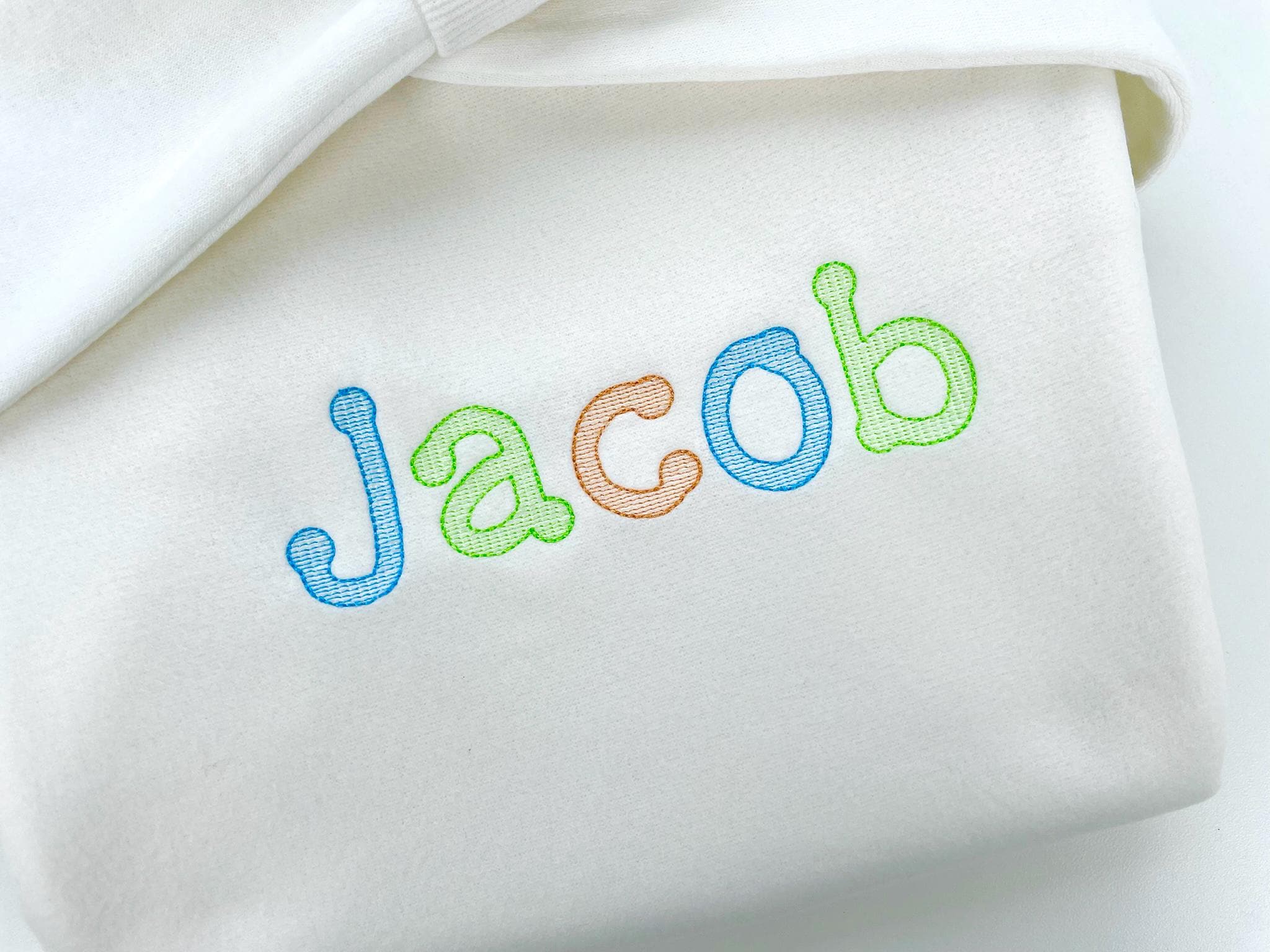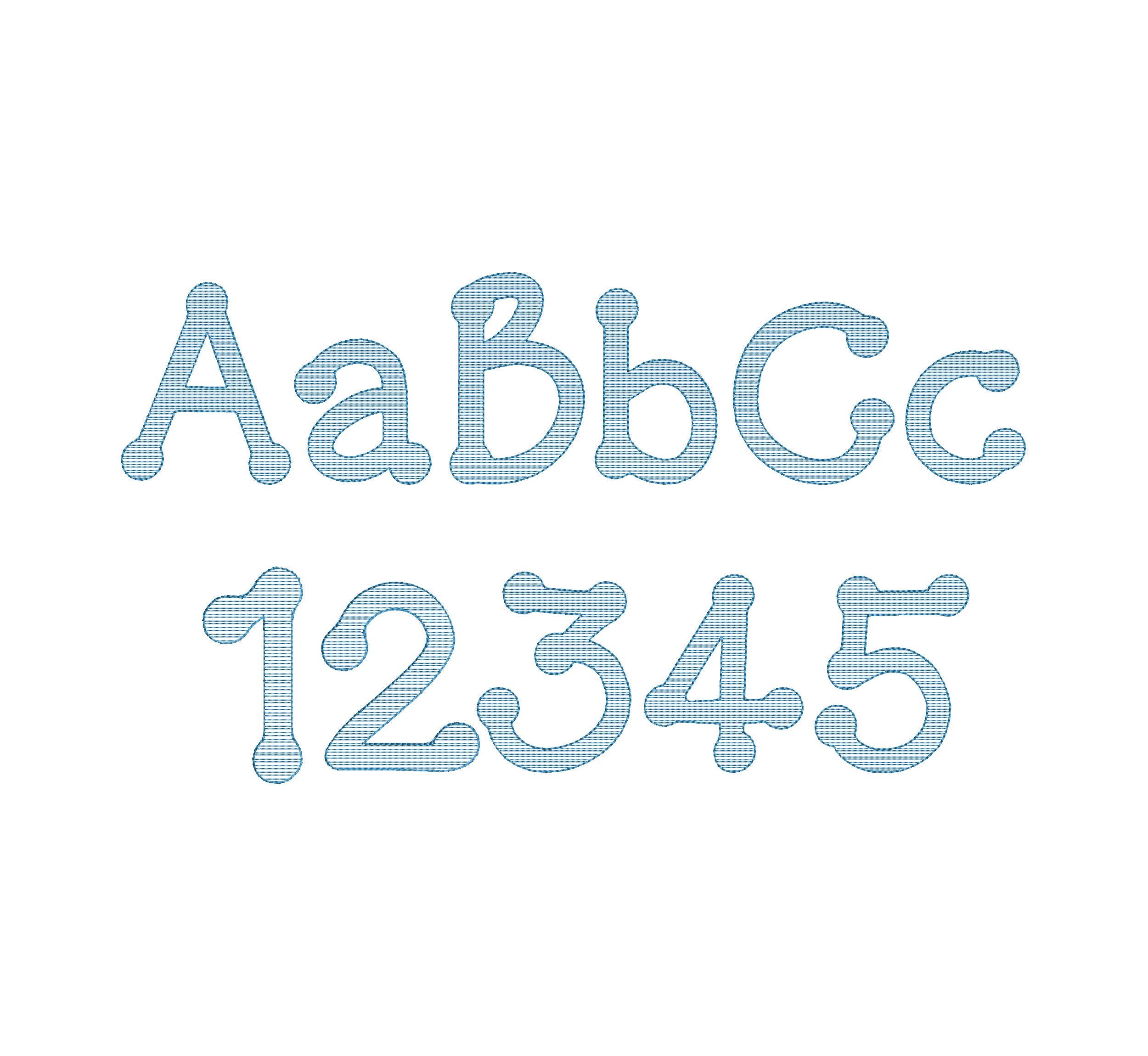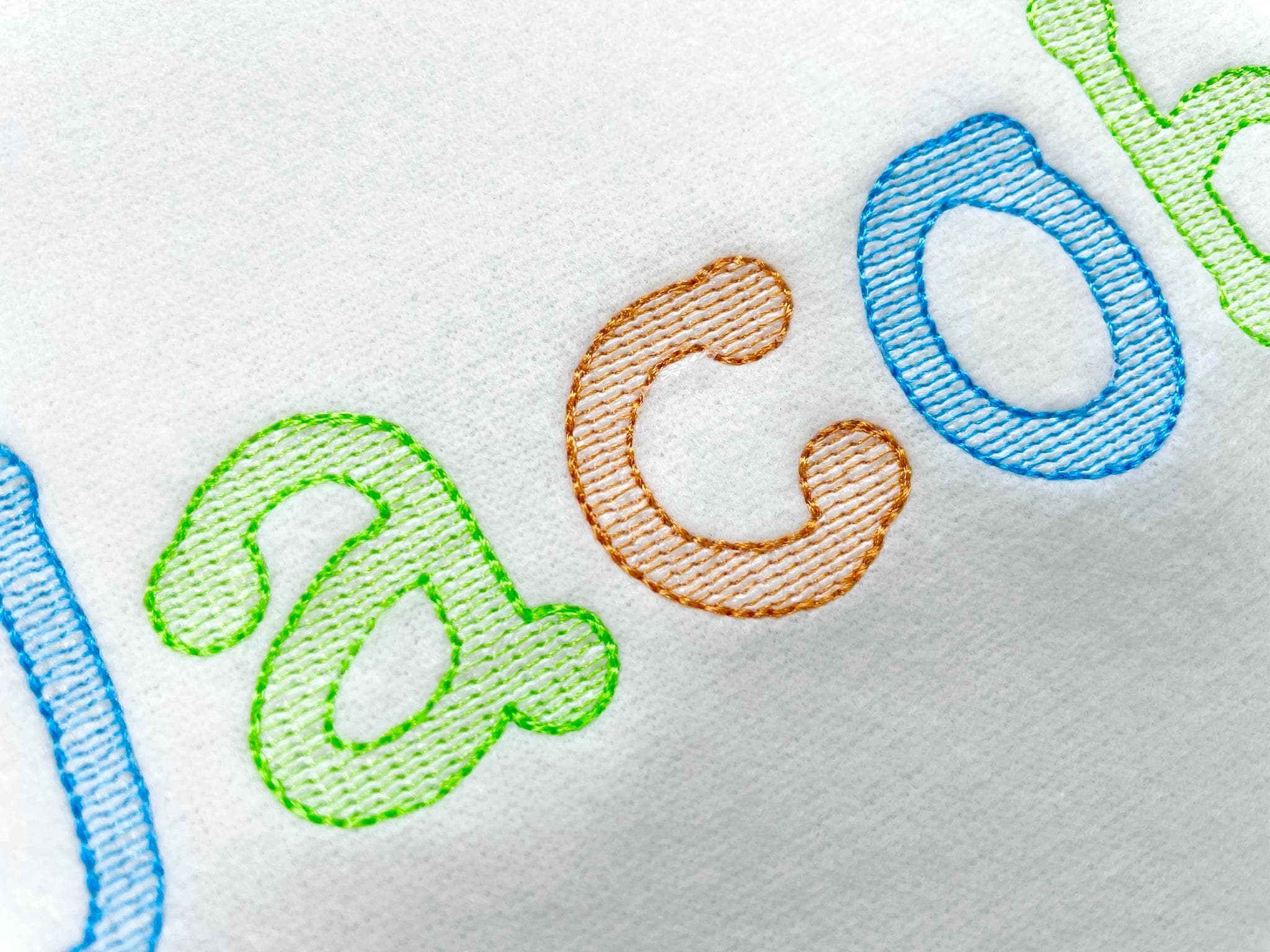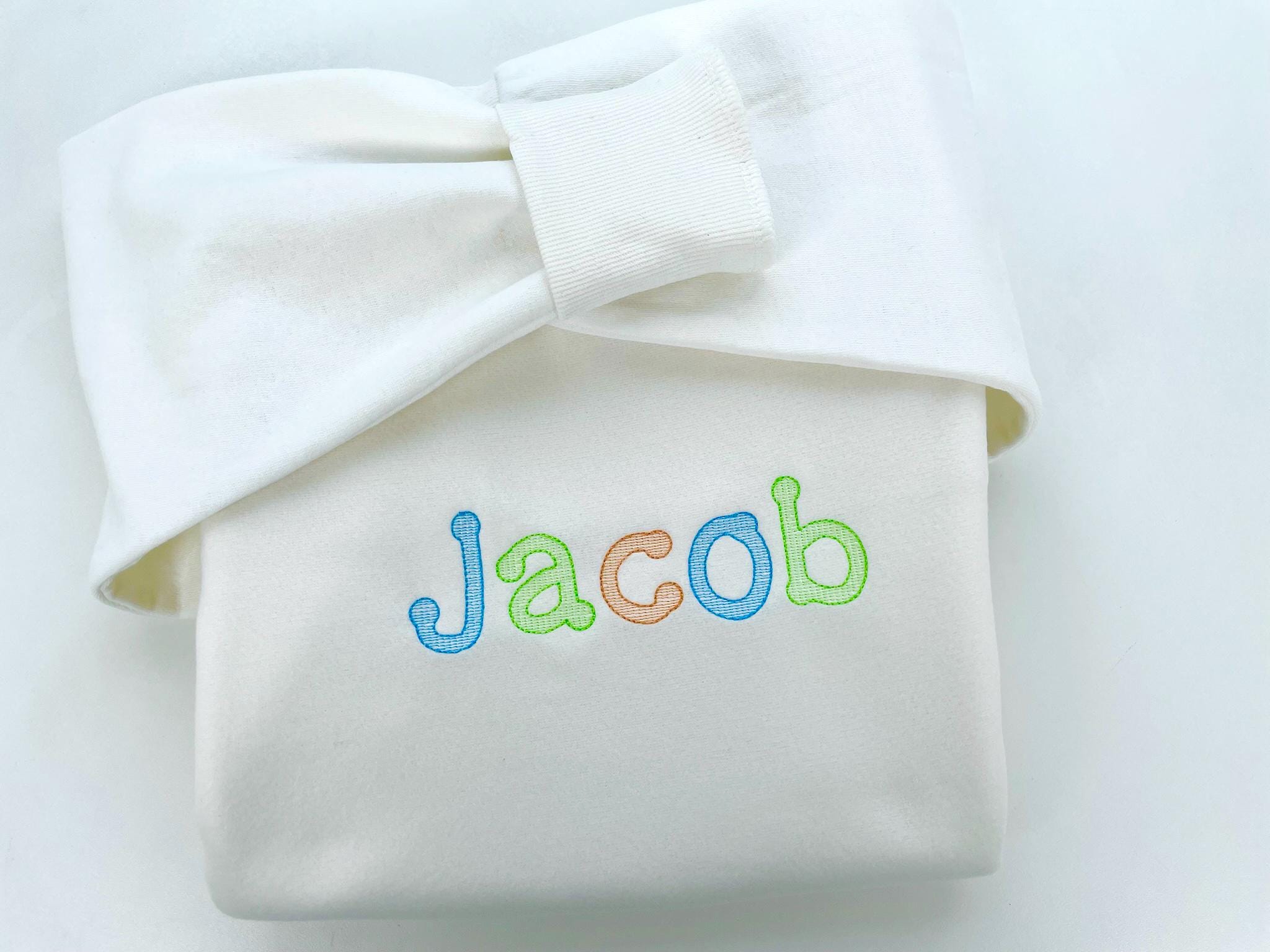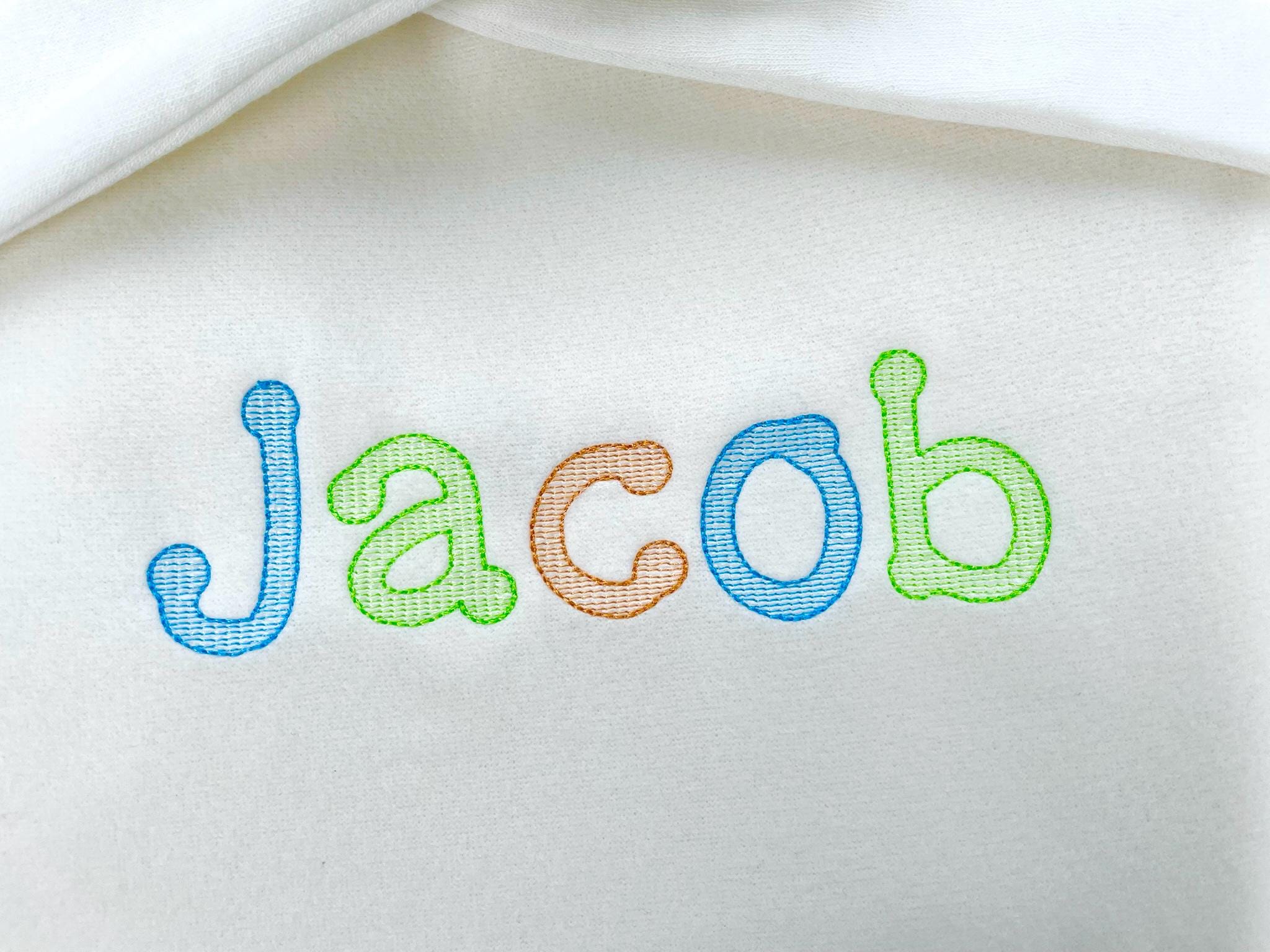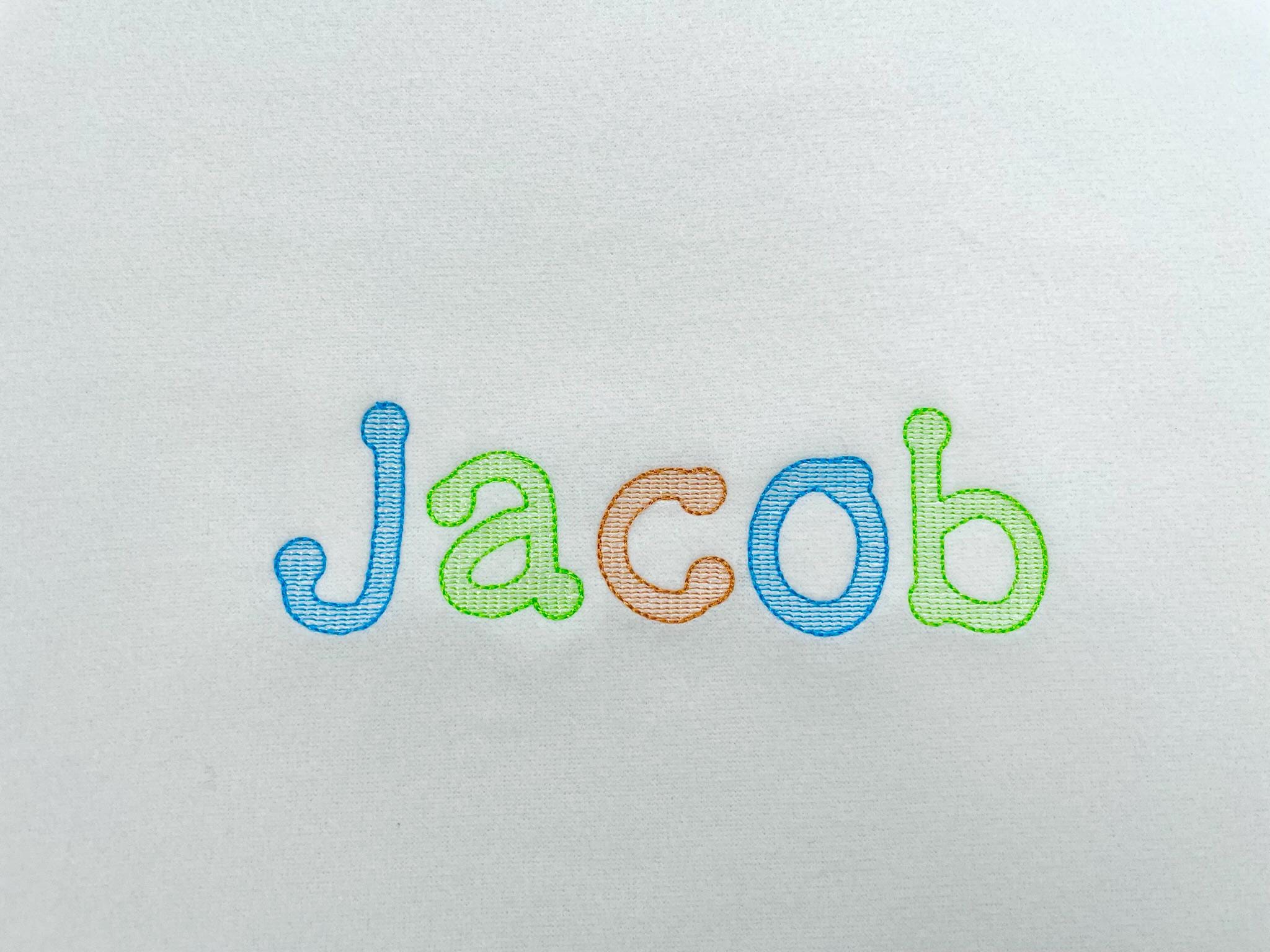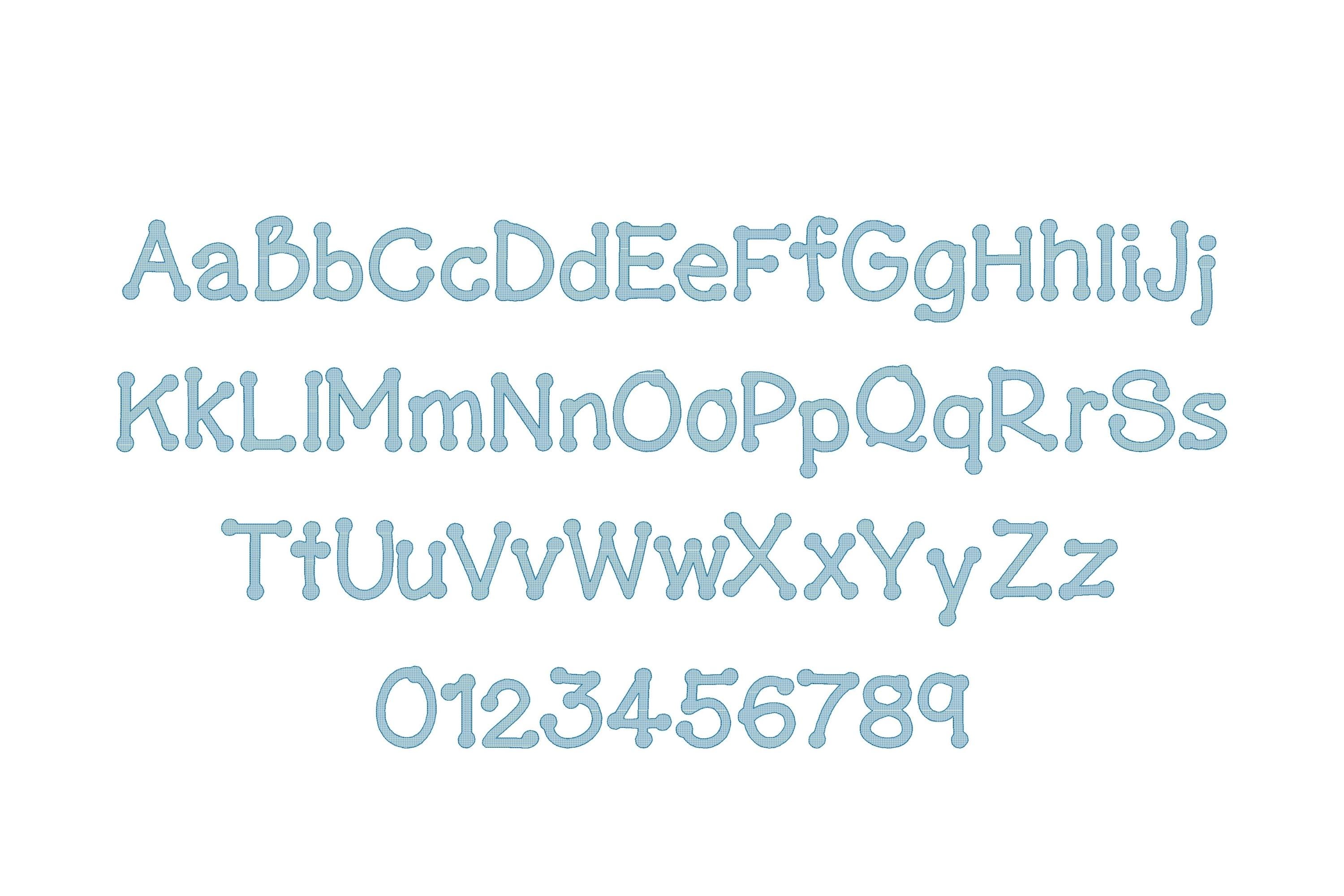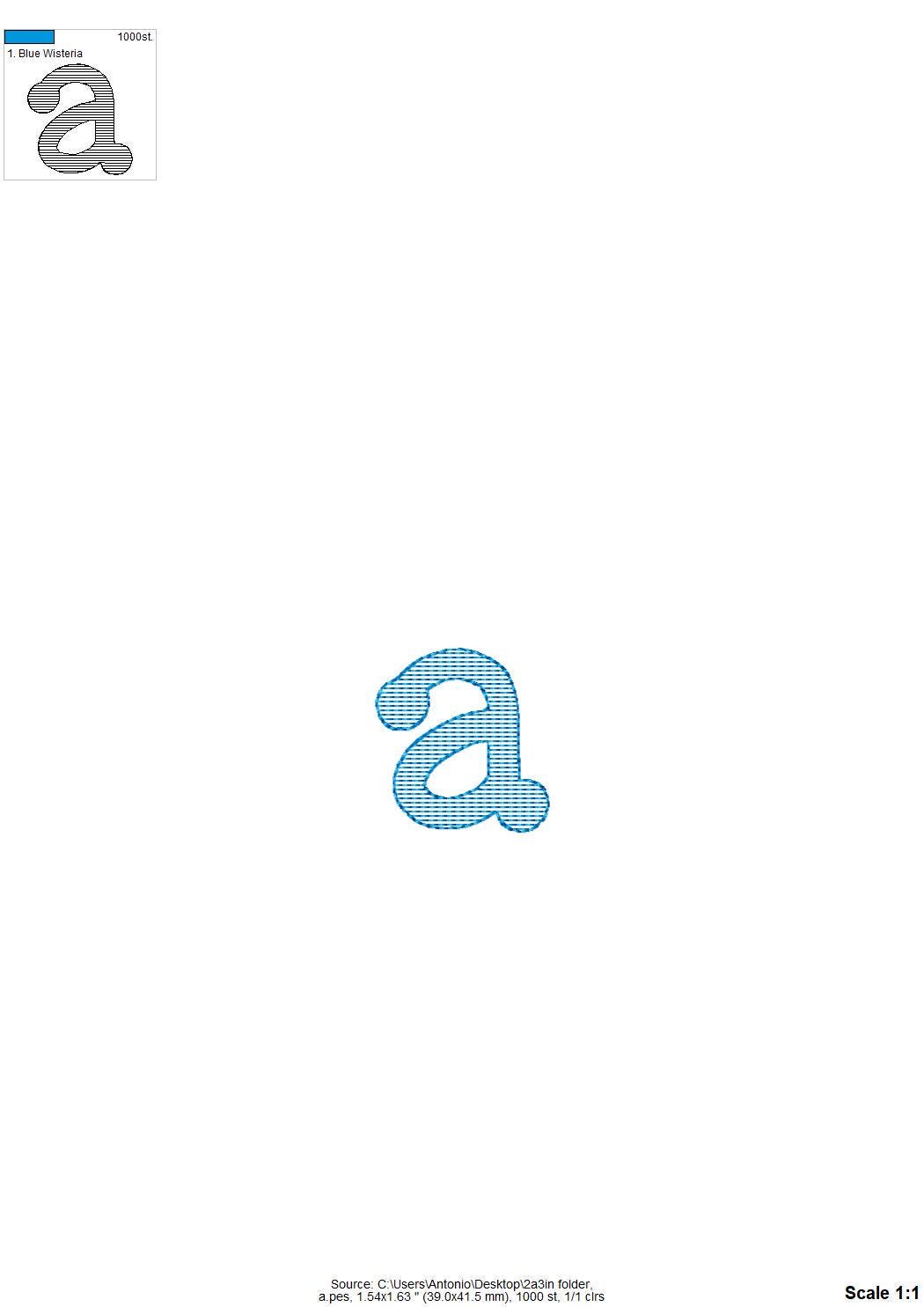
Quick light stitch fill Font Dot to Dot style kids alphabet machine embroidery designs Monogram letters many sizes 1.2 up to 4.4 inch, BX
This font is a quick stitch and it has a low density, light fill stitch and bean stitch outline - it looks best on white or light color fabrics. The background fabric looks through. Stunning effect!
Entire alphabet Aa-Zz uppercase and lowercase letters, and numbers 0-9.